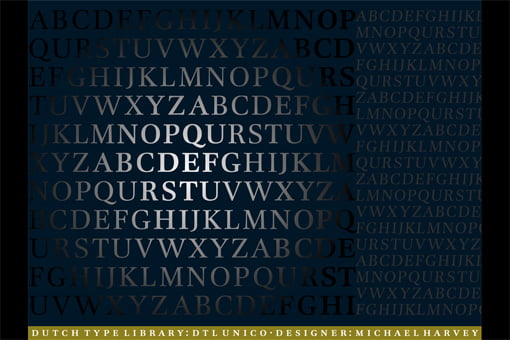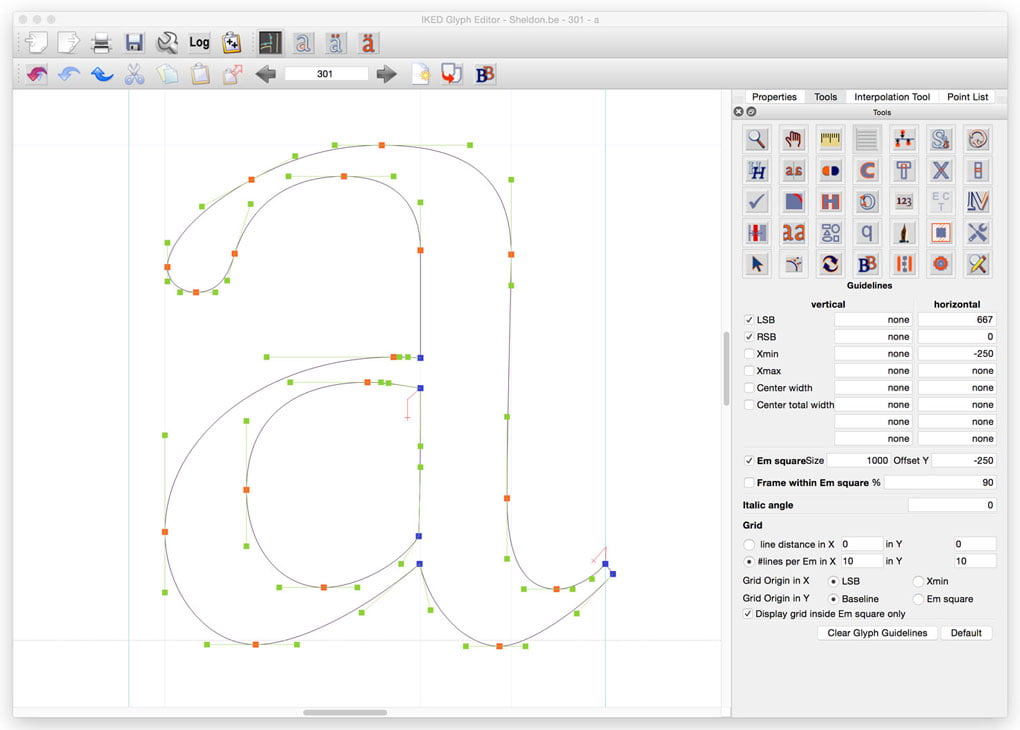
In 1990, after years of preparations, the Dutch Type Library started supplying exclusive digital typefaces. The company has since grown into the largest of its kind in the Netherlands. Attention is focused primarily on contemporary designs, but dtl also revives valuable historical type designs. | dtl’s exquisite collection of digital fonts can be compared with the very best that the famous type foundries have produced in the past. | |||||||||||||||||||||||||||||||||||||
Font ToolsFont production is a complex process that requires full control of the technology involved. Since the end of the 1990s the Dutch Type library and urw Type Foundry GmbH –font-technology pioneer since the early 1970s– jointly develop tools for the professional font production. The history of these tools goes all the way back to the ikarus system from more than 40 years ago. From the beginning of this development on, the goal has always been to make batch processing of font data as easy as possible. | ||||||||||||||||||||||||||||||||||||||